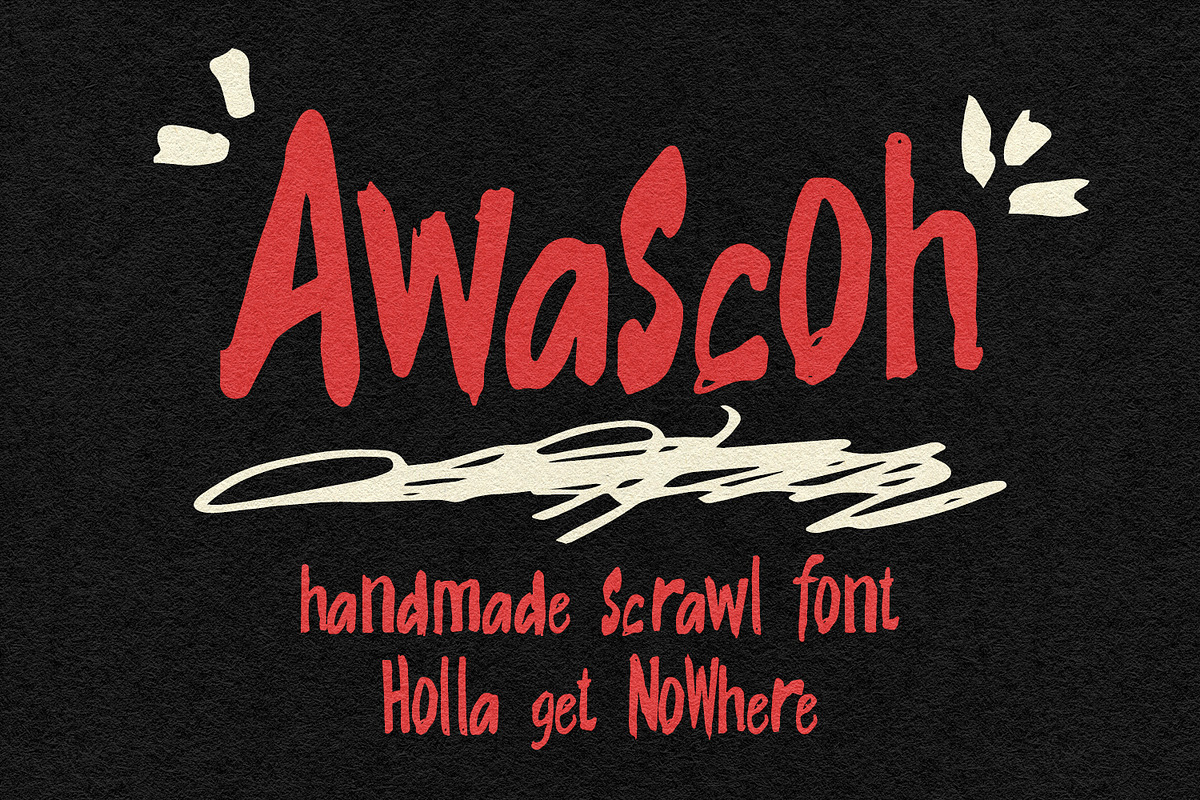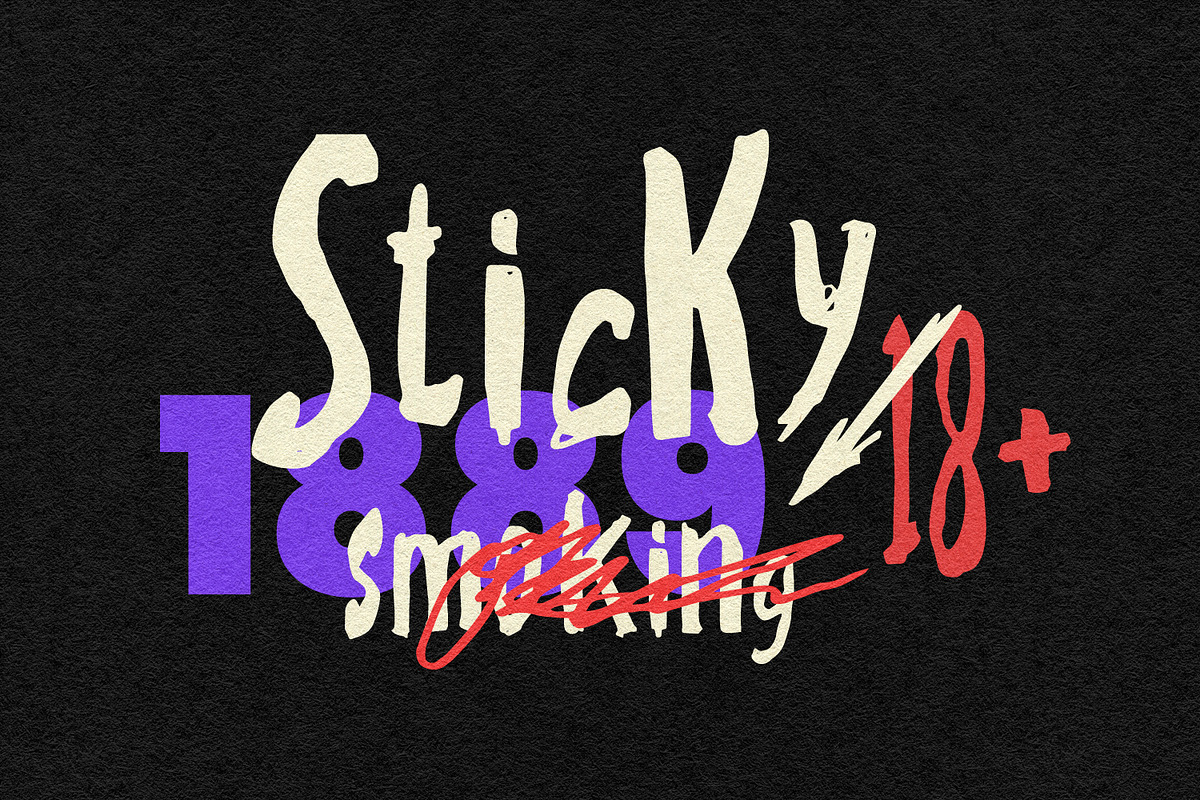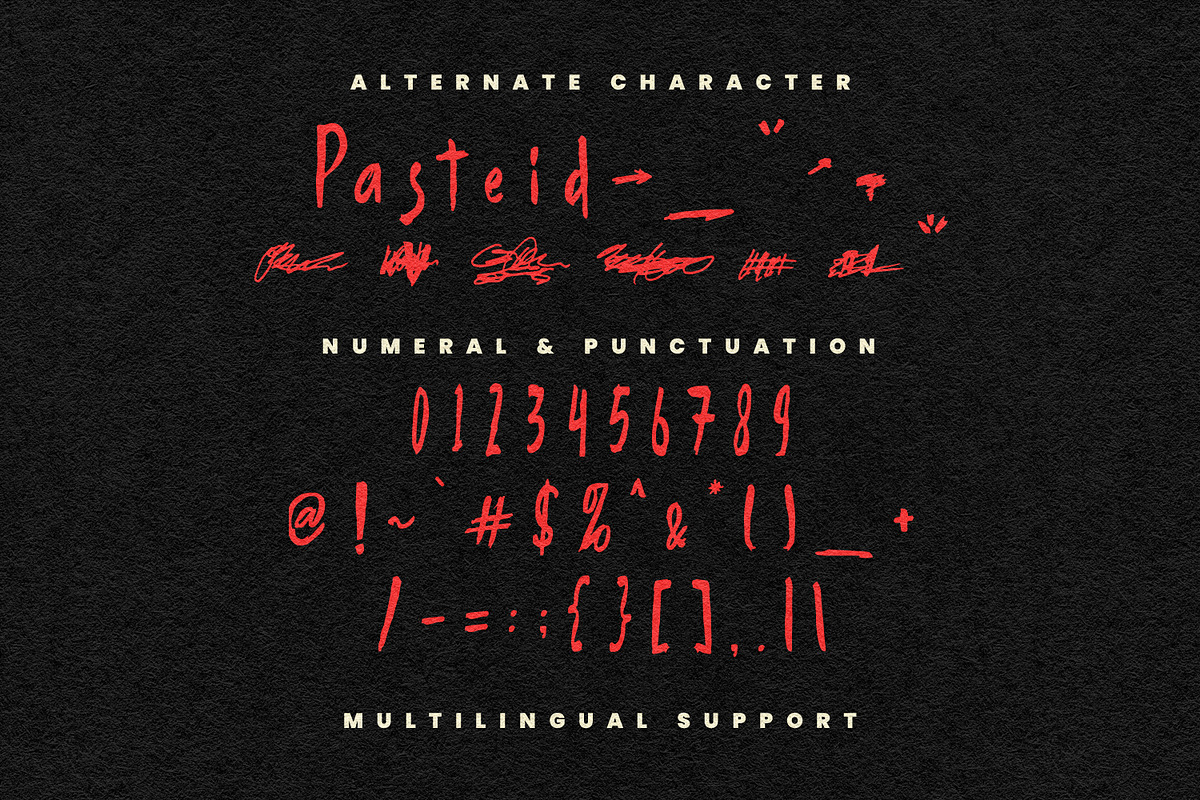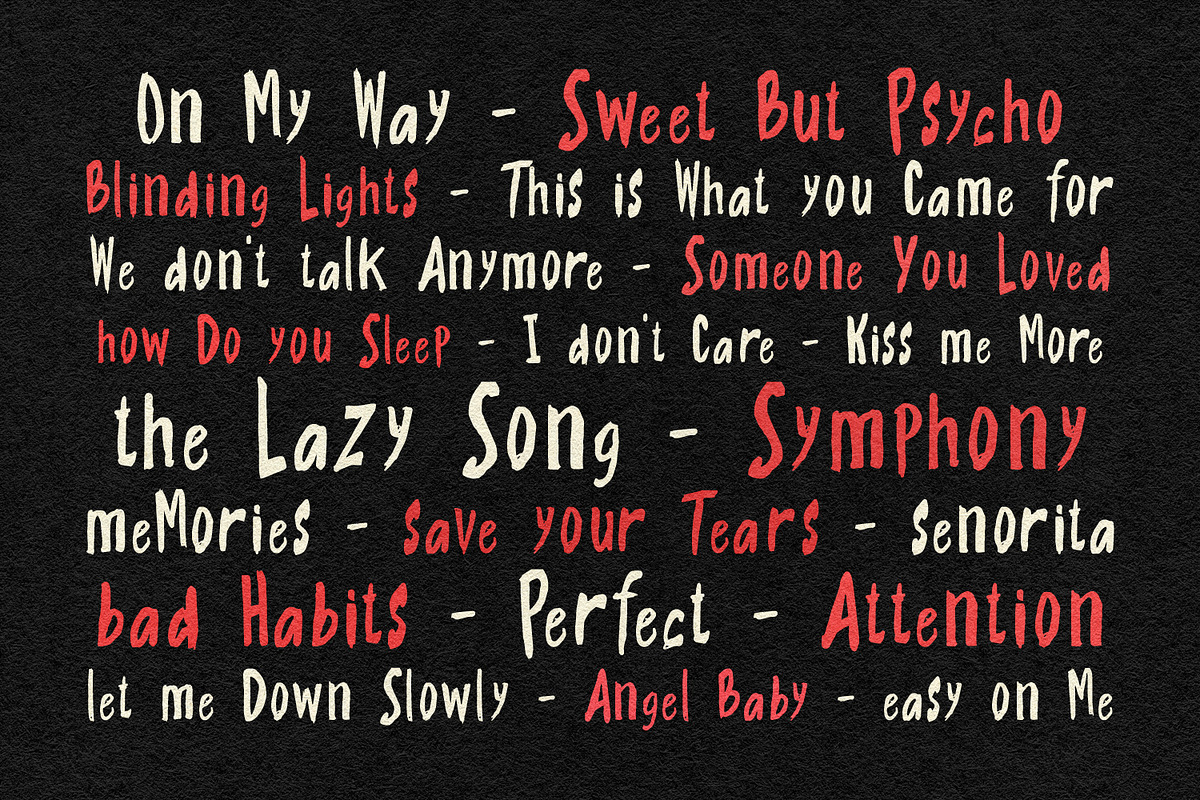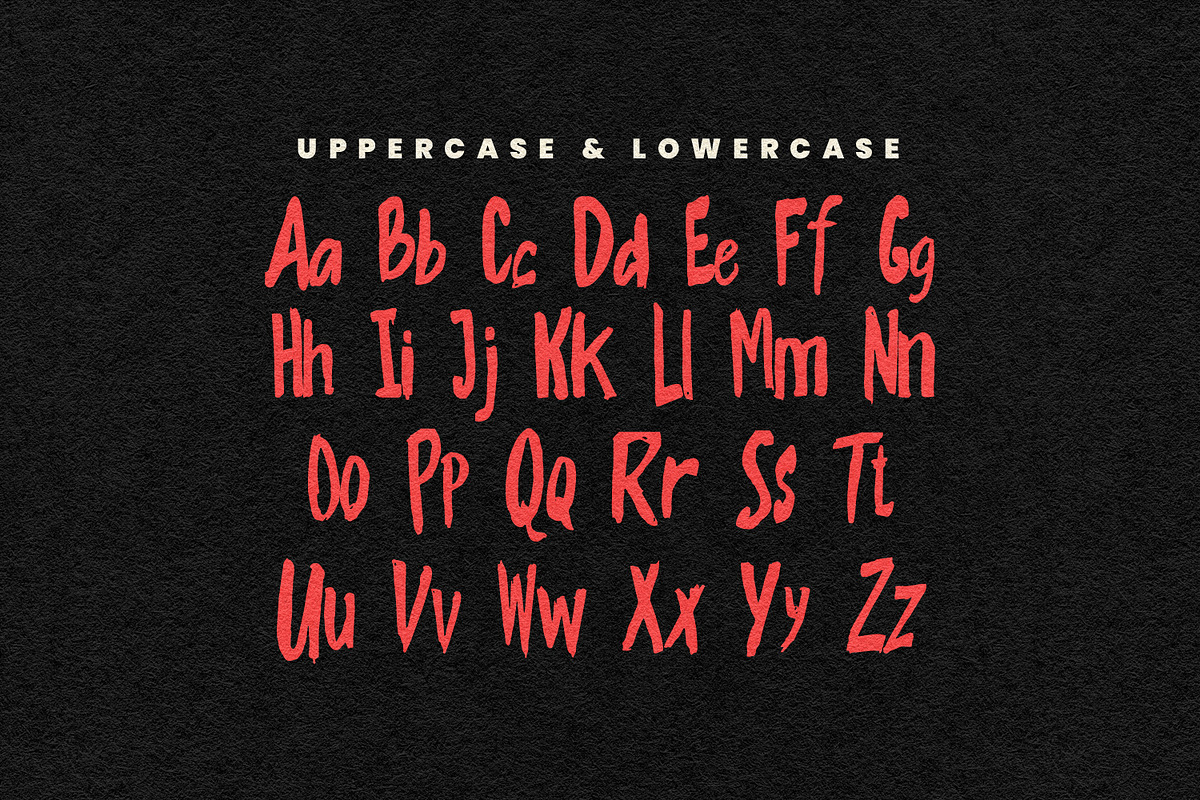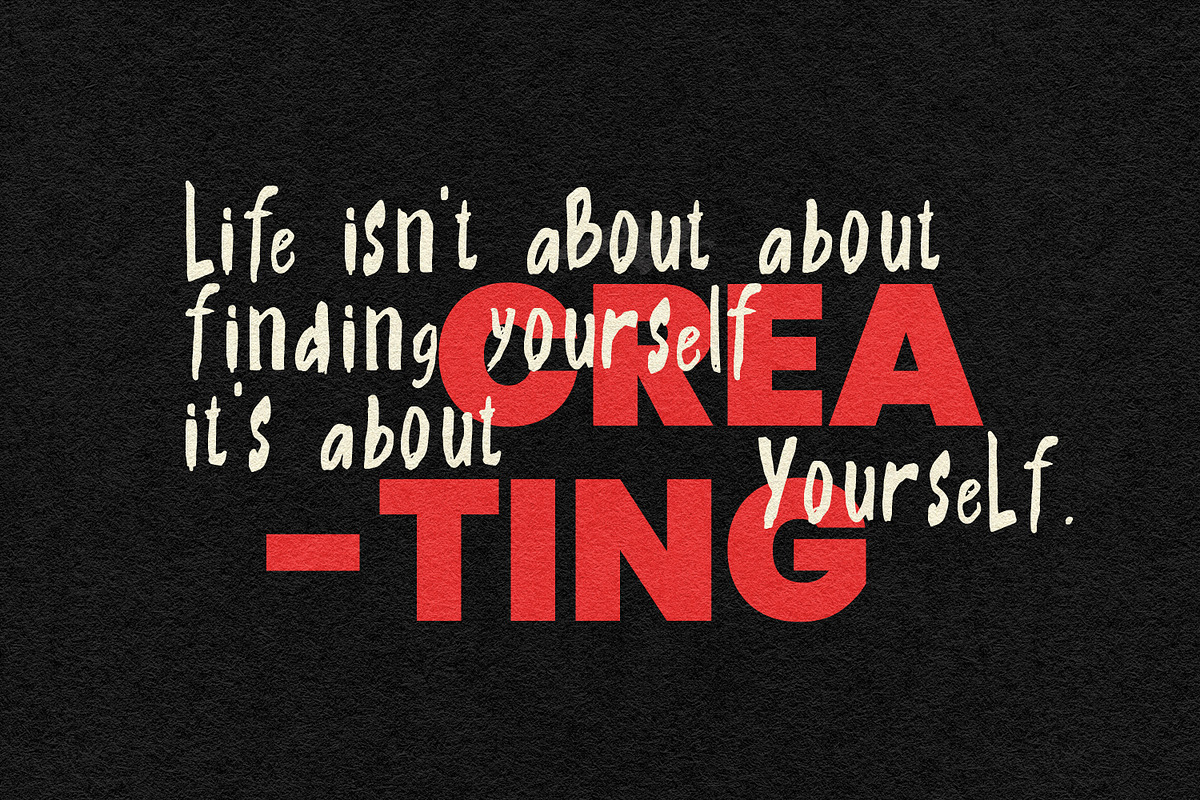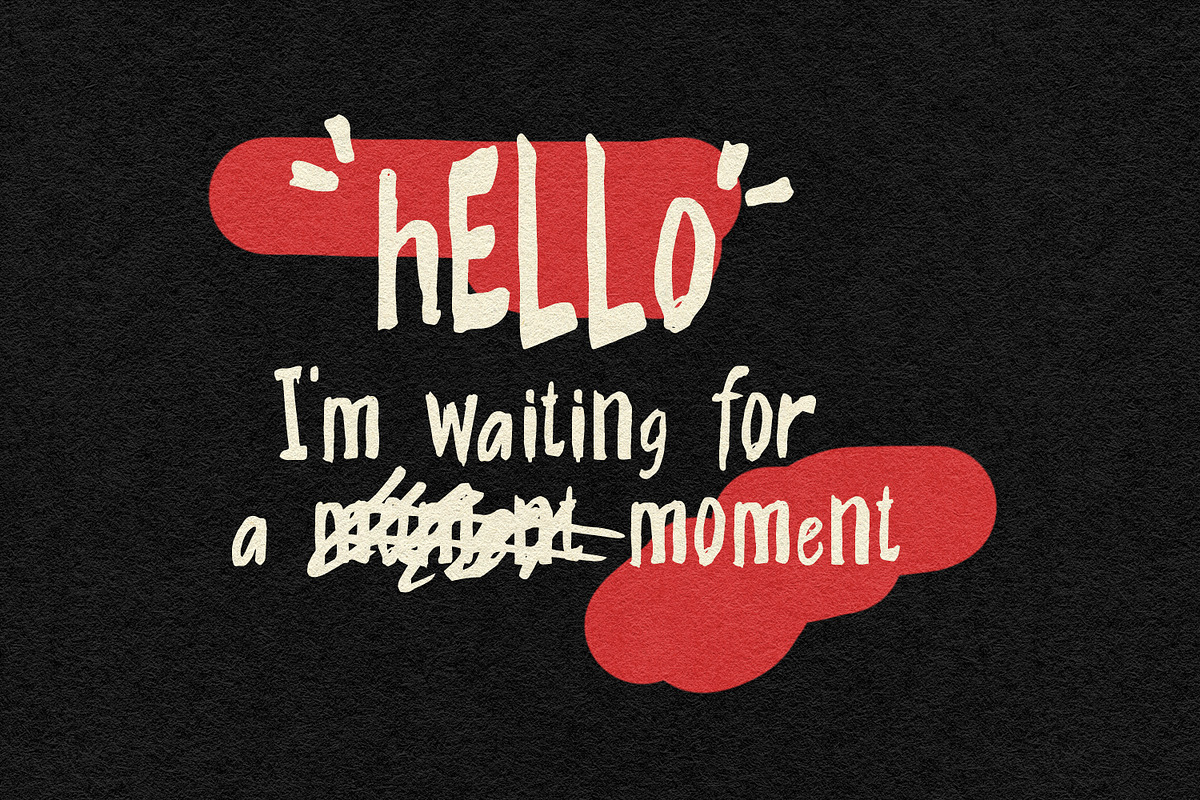
Awascoh Handmade Handwritten Scrawl
Give your designs an authentic brush handcrafted feel. “Awascoh Handmade Scrawl Font” is perfectly suited to signature, stationery, logo, typography quotes, website header, branding and more.